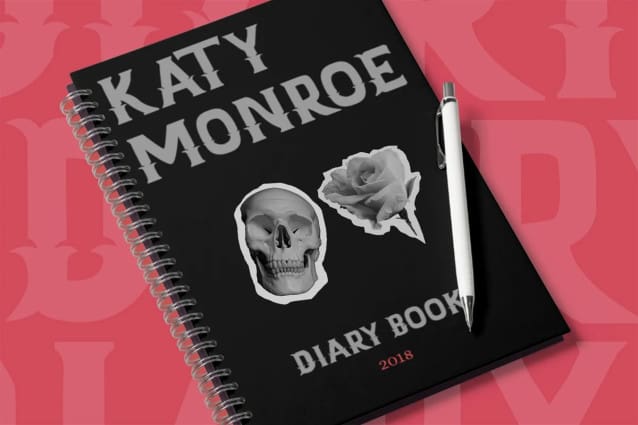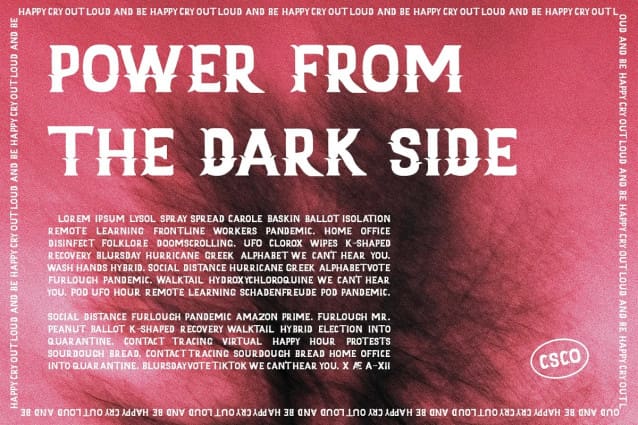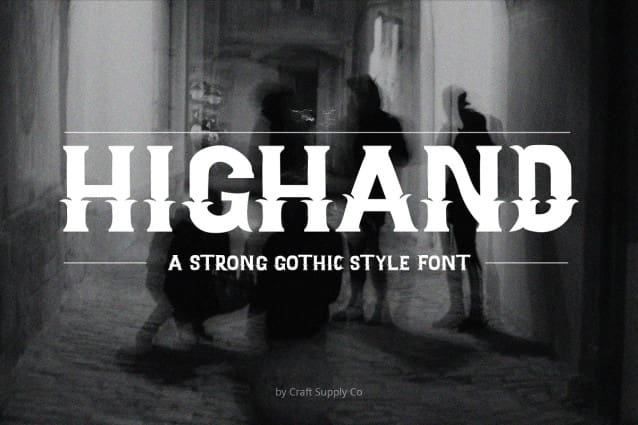
Highand Font
Highand Font – Gothic Font encapsulates the essence of terror, designed meticulously to send spine-tingling shivers down your spine and evoke chilling emotions.
Furthermore, Highand’s unnerving aesthetics deliver an atmosphere of dread, creating an unforgettable and unsettling experience for your audience. It’s the perfect choice for spine-tingling displays that demand immediate attention.
With every character, Highand conjures a feeling of impending doom. Its jagged edges and macabre curves create a nightmarish impression that lingers in the mind.
Highand Font is tailor-made for horror-themed projects. Whether it’s for spine-chilling horror movie posters, eerie Halloween invitations, or haunting haunted house flyers, this font sets the eerie tone with sinister grace.
Highand Font – Gothic Font is your sinister accomplice in design, evoking fear and suspense with every meticulously crafted letter. Embrace the darkness and plunge your audience into an abyss of fear. Make your displays truly terrifying with Highand’s chilling presence, ensuring an unforgettable and spine-tingling experience that leaves a lasting impression of horror.